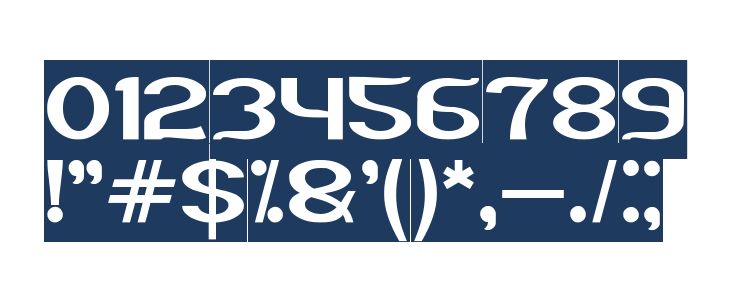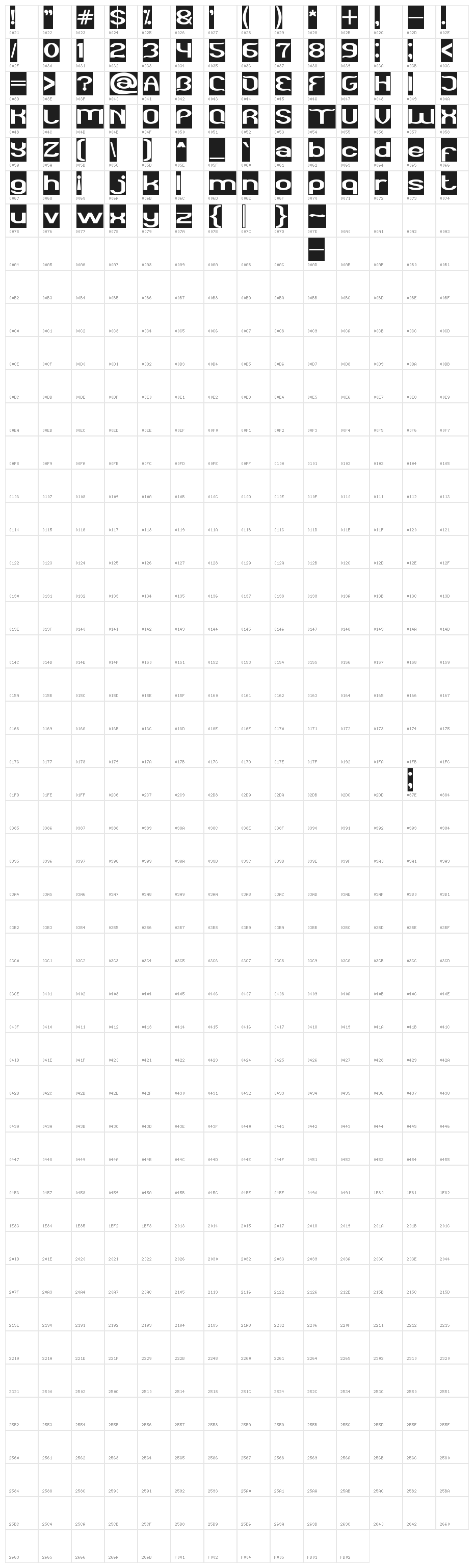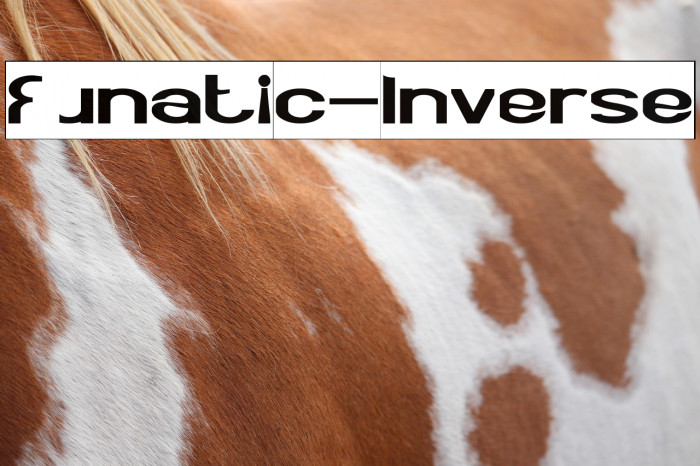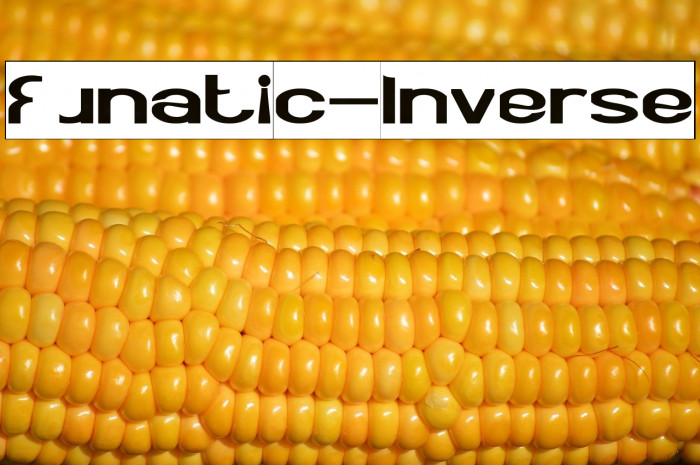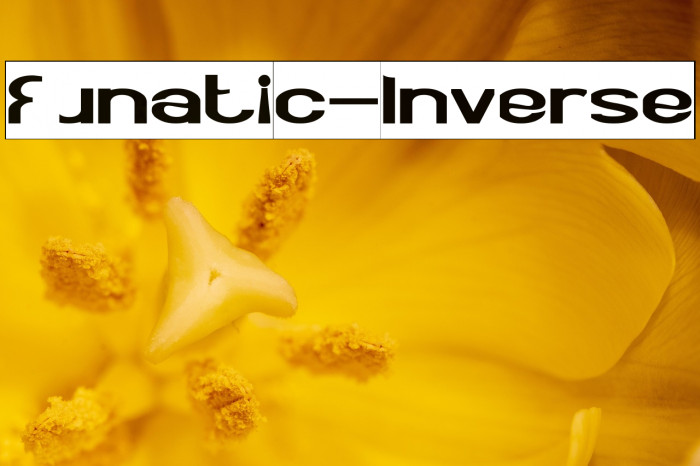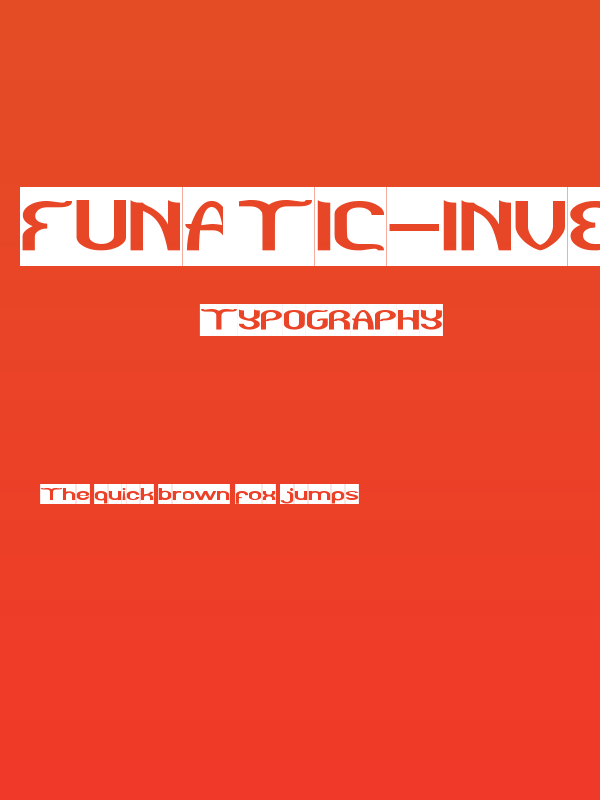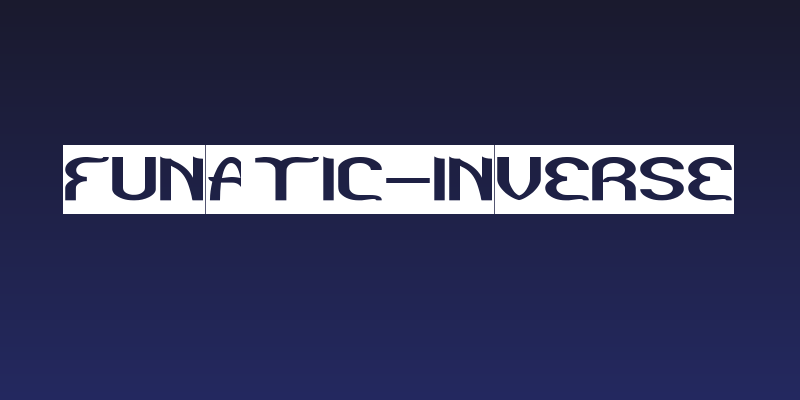
Funatic-Inverse Font
Funatic-Inverse Description
This font features a bold and playful design with a unique twist on traditional letterforms. Each character is crafted with a distinct style that combines elements of both modern and retro aesthetics. The uppercase letters are particularly striking, with exaggerated curves and sharp angles that create a sense of movement and energy. The lowercase letters maintain this dynamic feel, offering a cohesive look across the alphabet. Numbers and special characters are equally bold, ensuring consistency throughout. The font's overall appearance is both eye-catching and versatile, making it suitable for a variety of creative projects.